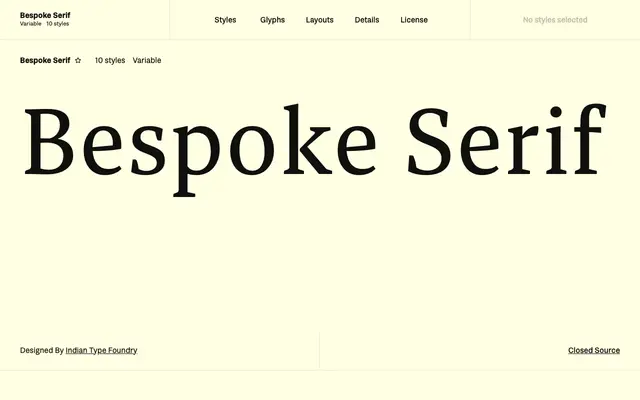
Bespoke Serif
A text-oriented wedge serif from Indian Type Foundry with five weights, italics and variable font support, designed as part of the broader Bespoke superfamily.
Designed by a team of five at Indian Type Foundry, Bespoke Serif pairs wedge-shaped serifs with large open counterforms to keep text legible at small sizes. The italics are partially cursivised rather than simply slanted, with the lowercase 'a' and 'g' switching from double-storied to single-storied forms. Proportionally-spaced oldstyle figures complete the text-focused feature set, and the family sits alongside Bespoke Sans and Bespoke Stencil as part of a coherent superfamily.
Bespoke Serif features wedge-shaped serifs and open counterforms, positioning it as a text-optimised wedge or hybrid serif rather than a classical old-style or transitional design.